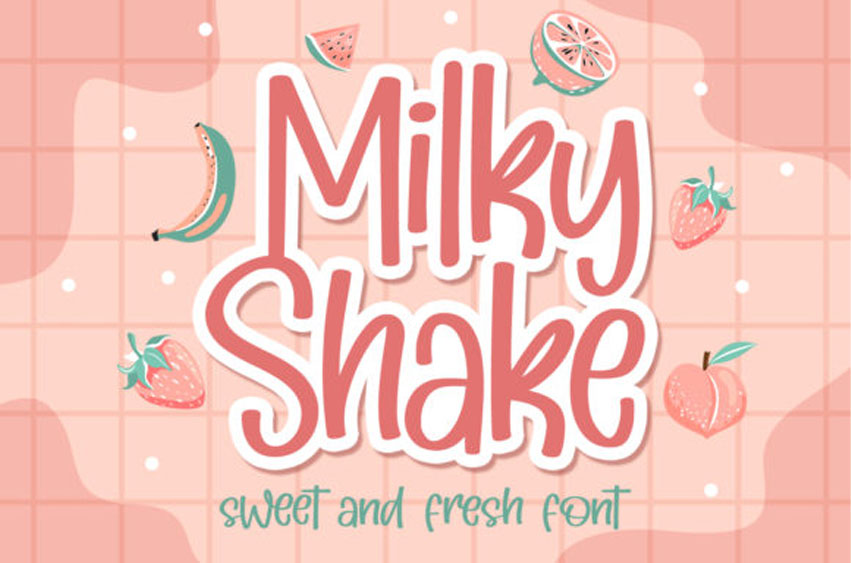
Milky Shake Font
Milky Shake Font is a sweet and fresh handwritten font. Its natural and unique style makes it incredibly fitting to a large pool of designs.